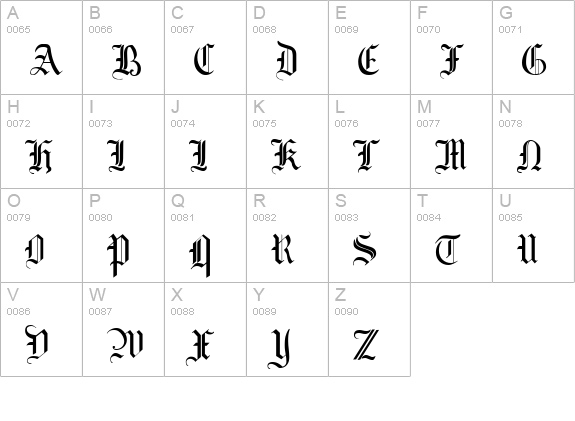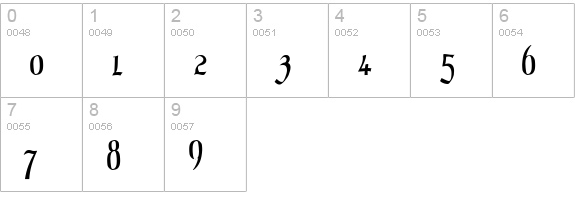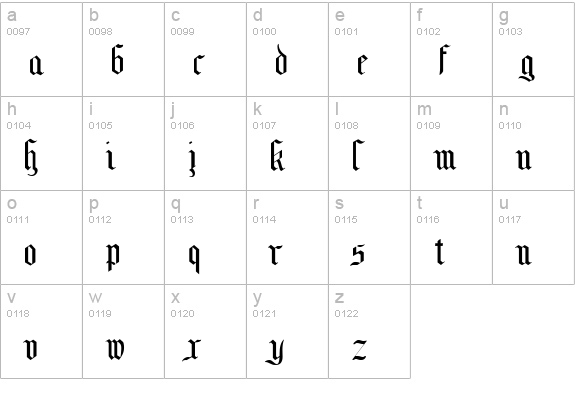
MottisfontNo2 Font Details
MottisfontNo2 font exudes elegance and sophistication with its unique design and classic appeal. This timeless font is perfect for adding a touch of charm to any project, whether it be invitations, branding, or editorial designs. Its clean lines and stylish curves give it a modern yet timeless look that is sure to make a statement. What sets MottisfontNo2 font apart is its versatility and readability, making it suitable for a wide range of design applications. Whether you're looking to create a sleek logo or design a striking poster, this font has got you covered. The best part? MottisfontNo2 font is completely free to download at FontsMarket.com. So go ahead and elevate your designs with this stunning font that will surely leave a lasting impression.